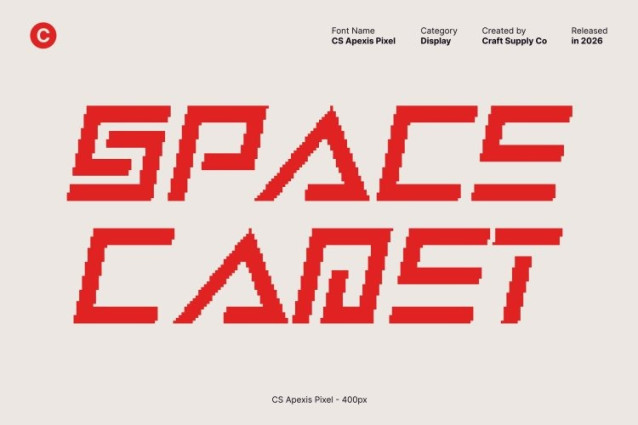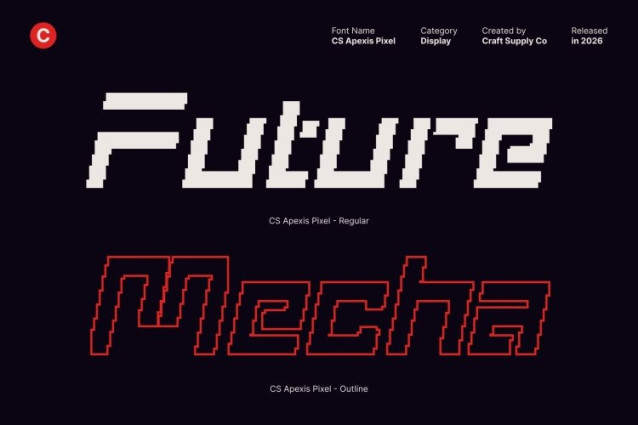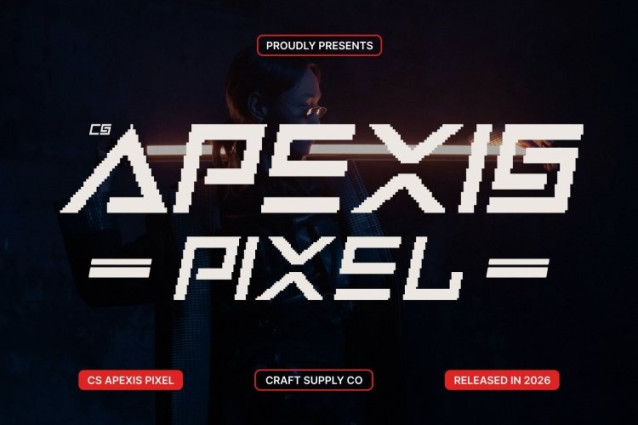
CS Apexis Pixel Font
CS Apexis Pixel Font This is a futuristic display font that merges industrial brutalism with modern techno aesthetics, enhanced by a distinctive pixel style. Built with clean lines, sharp angles, and pixel-based construction, this typeface delivers a bold, digital-forward appearance that feels both mechanical and futuristic. It’s designed for contemporary projects that demand strength, innovation, and a clear technological edge.
Industrial Brutalist Structure with Pixel Precision
Inspired by brutalist design principles, this font features rigid geometry, solid forms, and uncompromising structure. The pixel detailing reinforces its industrial character, giving the letterforms a mechanical, engineered feel reminiscent of digital systems and sci-fi interfaces. This combination creates a commanding presence while maintaining order and consistency across layouts.
Clean Lines and Futuristic Digital Energy
Precision defines this font. Its sharp edges and structured pixel forms create a sleek, high-tech impression that feels efficient and modern. The minimal approach eliminates unnecessary decoration, ensuring clarity and legibility while amplifying its futuristic, techno-driven mood.
Designed to Push Creative Boundaries
This font is built for projects that aim to stand out and explore bold visual territory. Perfect for tech branding, gaming titles, sci-fi visuals, posters, digital interfaces, and experimental layouts, this font transforms typography into a strong digital statement.